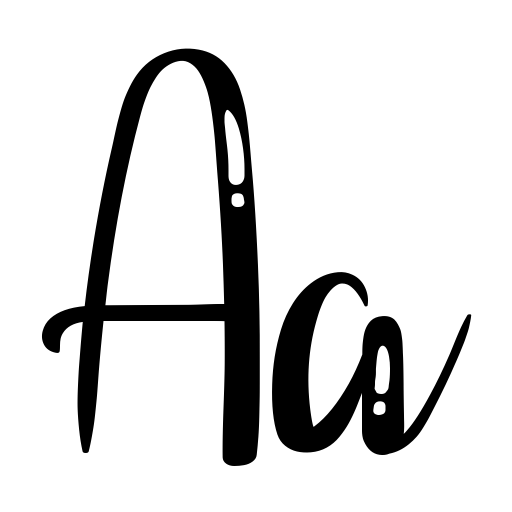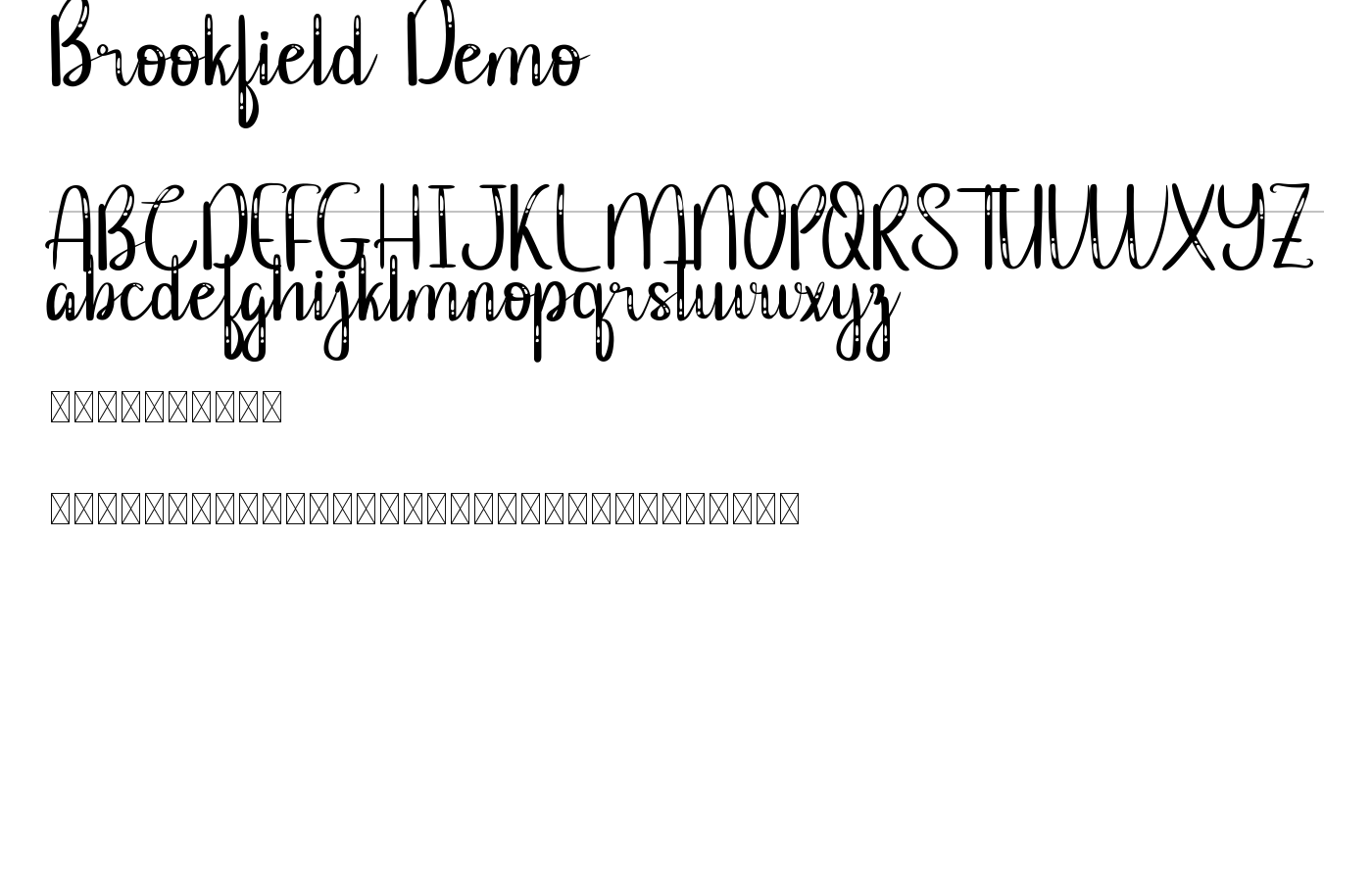
Brookfield Demo is a playful and elegant script font characterized by its tall, narrow letterforms with a lively hand-drawn feel. Its smooth, consistent strokes and decorative loops make it perfect for creative branding, invitations, and headlines that need a friendly yet sophisticated touch. This font works best in designs where a personal, artistic vibe is desired, adding charm and uniqueness without sacrificing readability.
Brookfield Demo Font
About Brookfield Demo Font
| Font family | Brookfield Demo Font |